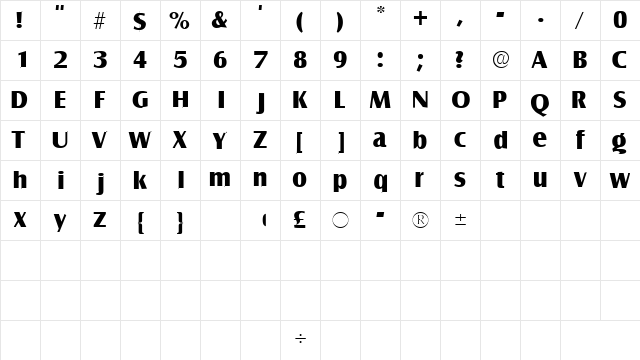
NautoSSK Regular
Design Context for NautoSSK Typeface
NautoSSK offers clean, dependable letterforms without strong stylistic allegiance, making it a practical choice for designers who need flexibility.